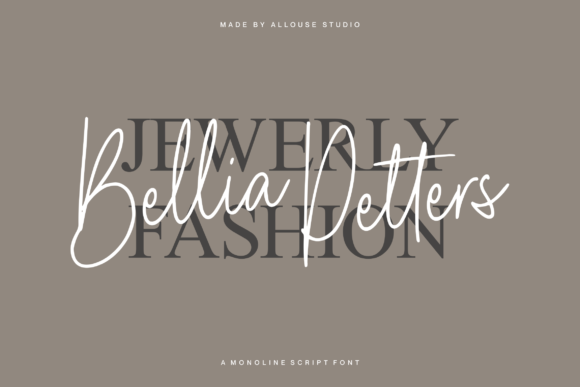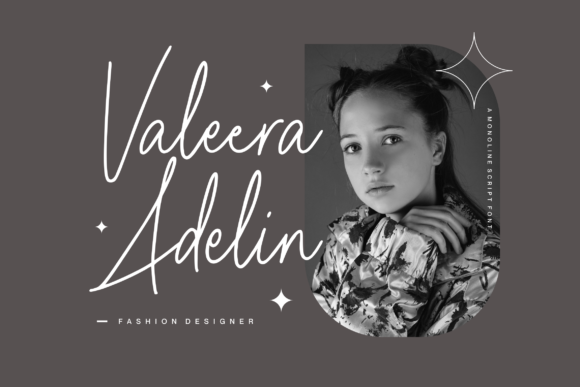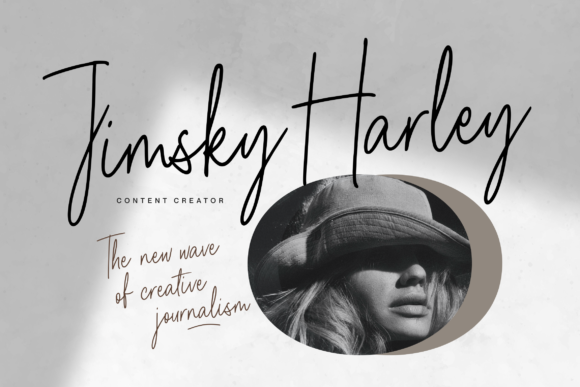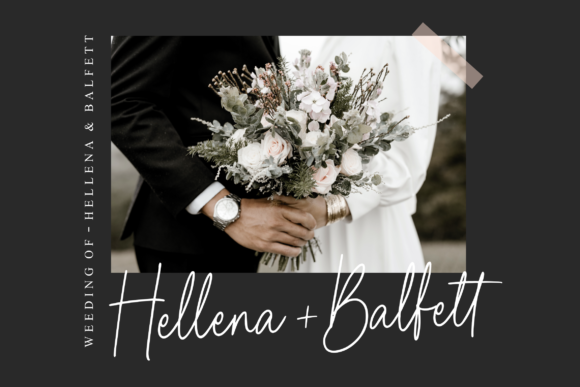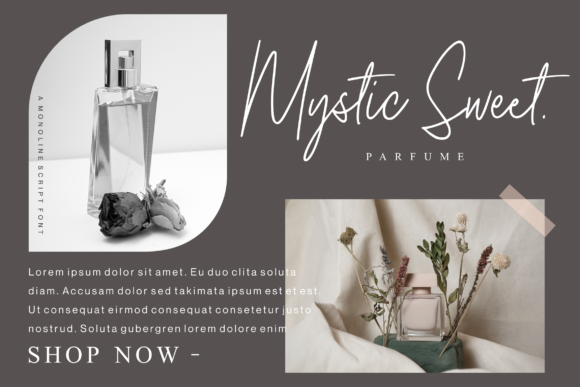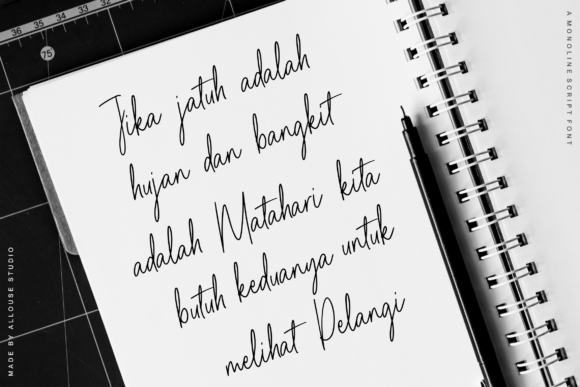
Introducing Goldenlead Font: Elevate Your Designs with Elegance
Are you a designer or crafter looking for a font that can add a touch of sophistication and elegance to your creations? Look no further than Goldenlead Font, a thin lettered and delicate script font that is sure to become an incredible asset to your font library.
What is Goldenlead Font?
Goldenlead Font is a beautiful, hand-crafted script font that features thin, delicate letters and a elegant, refined aesthetic. Its unique design makes it perfect for a wide range of applications, from romantic and feminine designs to more formal and sophisticated projects.
Key Features of Goldenlead Font
- Thin Lettering: Goldenlead Font features thin, delicate letters that are perfect for creating elegant and refined designs.
- Delicate Script: The font’s script style is perfect for adding a touch of sophistication and elegance to your designs.
- Versatile: Goldenlead Font can be used for a wide range of applications, from romantic and feminine designs to more formal and sophisticated projects.
- Easily Readable: Despite its delicate nature, Goldenlead Font is easily readable, making it perfect for use in both digital and print designs.
Why Choose Goldenlead Font?
So why should you choose Goldenlead Font for your next design project? Here are just a few reasons:
- Elegance: Goldenlead Font adds a touch of elegance and sophistication to any design, making it perfect for projects where you want to create a refined and polished look.
- Versatility: The font’s versatility means it can be used for a wide range of applications, from wedding and event designs to branding and packaging.
- Uniqueness: Goldenlead Font’s unique design sets it apart from other fonts, making it perfect for designers and crafters who want to create something truly special.
How to Use Goldenlead Font
Goldenlead Font can be used in a variety of ways, depending on your design needs. Here are a few ideas to get you started:
- Wedding and Event Designs: Goldenlead Font is perfect for creating beautiful wedding invitations, save the dates, and other event materials.
- Branding and Packaging: The font’s elegant and refined aesthetic makes it perfect for use in branding and packaging designs.
- Digital Designs: Goldenlead Font can be used in digital designs, such as social media graphics, blog headers, and more.
Tips for Pairing Goldenlead Font with Other Fonts
When pairing Goldenlead Font with other fonts, here are a few tips to keep in mind:
- Contrast: Pair Goldenlead Font with a bold, sans-serif font to create a beautiful contrast.
- Complementary Fonts: Pair Goldenlead Font with other script fonts or elegant serif fonts to create a cohesive look.
- Experiment: Don’t be afraid to experiment with different font pairings to find the perfect combination for your design.
Goldenlead Font is a beautiful, elegant script font that is sure to become an incredible asset to your font library. Its thin lettering and delicate design make it perfect for a wide range of applications, from romantic and feminine designs to more formal and sophisticated projects. Whether you’re a designer or crafter, Goldenlead Font is a great choice for anyone looking to add a touch of elegance and sophistication to their designs.